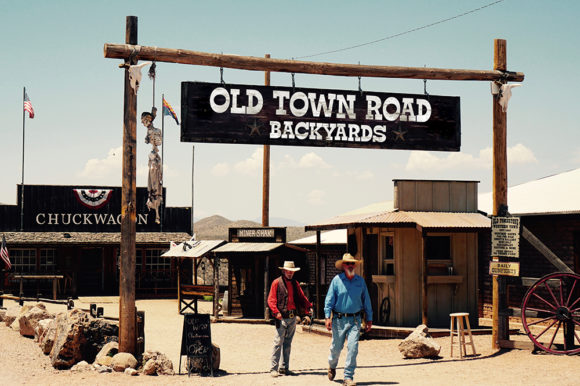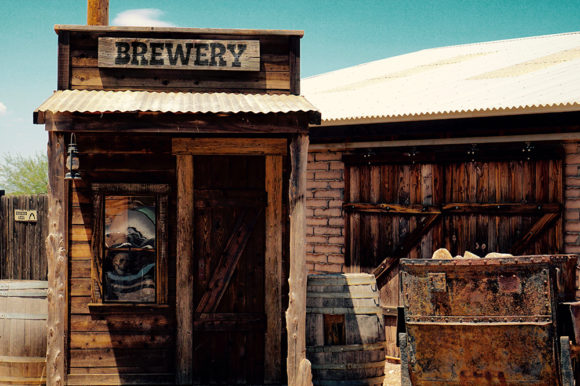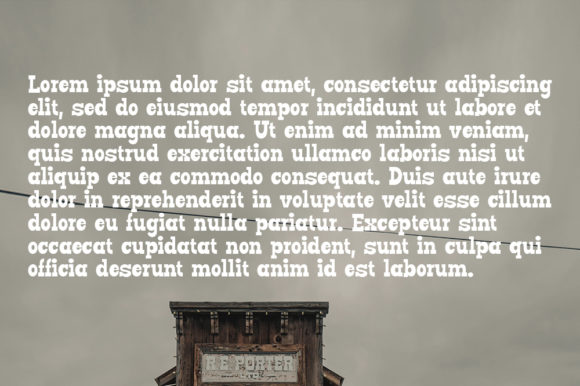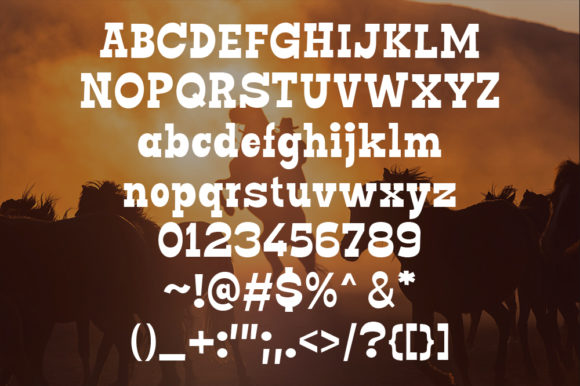
Introducing Go Boy Font: Elevate Your Designs to New Heights
In the world of design, typography plays a crucial role in conveying messages, expressing creativity, and capturing the audience’s attention. A modern display font can make all the difference in elevating a design project from ordinary to extraordinary. This is where Go Boy Font comes in – a stylish and versatile font designed to take your branding, headings, wedding designs, invitations, signatures, logos, labels, and more to the highest level.
What is Go Boy Font?
Go Boy Font is a modern display font that boasts a unique and captivating style. Its sleek lines, elegant curves, and precise craftsmanship make it an ideal choice for designers and crafters looking to add a touch of sophistication to their work. Whether you’re creating a brand identity, designing wedding invitations, or crafting eye-catching labels, Go Boy Font is the perfect companion to help you achieve your creative vision.
Key Features of Go Boy Font
- Modern and Versatile: Go Boy Font is designed to be versatile, making it suitable for a wide range of design projects, from branding and advertising to wedding designs and crafting.
- Elegant and Sophisticated: The font’s sleek lines and elegant curves give it a sophisticated look that’s perfect for designs that require a touch of luxury and refinement.
- Highly Legible: Go Boy Font is optimized for readability, ensuring that your message is conveyed clearly and effectively, even at smaller font sizes.
Use Cases for Go Boy Font
Go Boy Font is an incredibly versatile font that can be used in a variety of design projects, including:
- Branding: Create a lasting impression with Go Boy Font, perfect for logos, business cards, and brand guidelines.
- Wedding Designs: Add a touch of elegance to your wedding invitations, programs, and decorations with Go Boy Font.
- Invitations: Create stunning invitations for parties, events, and special occasions with Go Boy Font.
- Signatures: Elevate your email signatures, social media profiles, and digital presence with Go Boy Font.
- Logos: Design unique and memorable logos for businesses, products, and services with Go Boy Font.
- Labels: Create eye-catching labels for products, packaging, and marketing materials with Go Boy Font.
Tips for Using Go Boy Font
To get the most out of Go Boy Font, here are some tips to keep in mind:
- Experiment with Font Sizes: Go Boy Font looks great at various font sizes, so don’t be afraid to experiment and find the perfect size for your design.
- Pair with Other Fonts: Combine Go Boy Font with other fonts to create a unique and visually appealing typography scheme.
- Play with Colors: Go Boy Font looks great in a variety of colors, so experiment with different colors to find the perfect match for your design.
Go Boy Font is a modern display font that’s designed to elevate your design projects to new heights. Its sleek lines, elegant curves, and precise craftsmanship make it an ideal choice for designers and crafters looking to add a touch of sophistication to their work. With its versatility, legibility, and ease of use, Go Boy Font is the perfect companion for a wide range of design projects. So why wait? Download Go Boy Font today and take your designs to the next level!